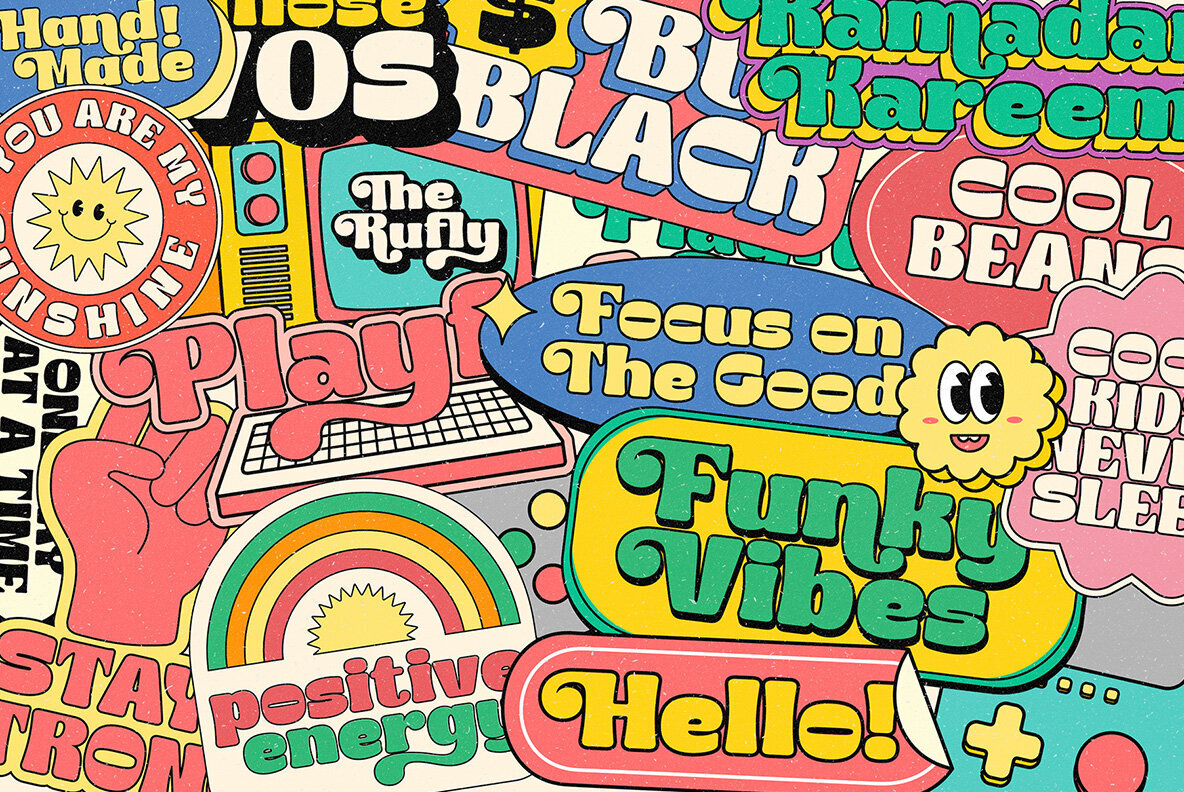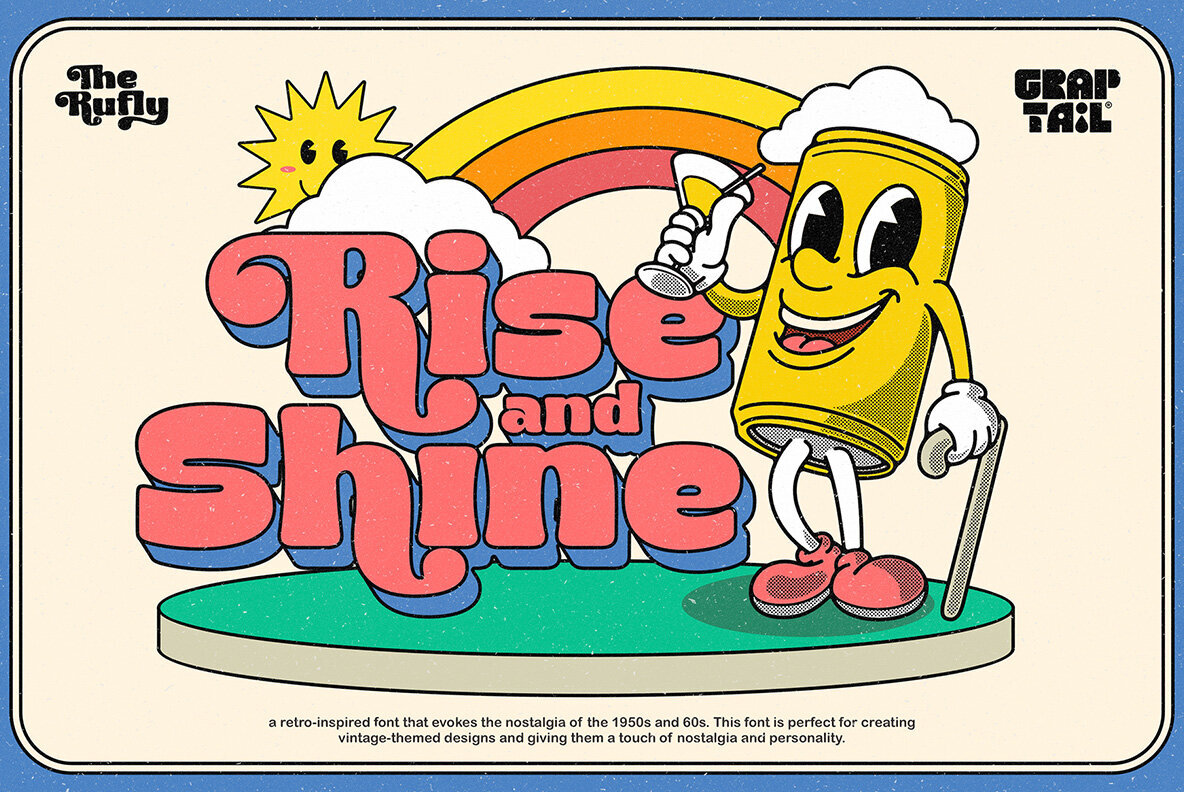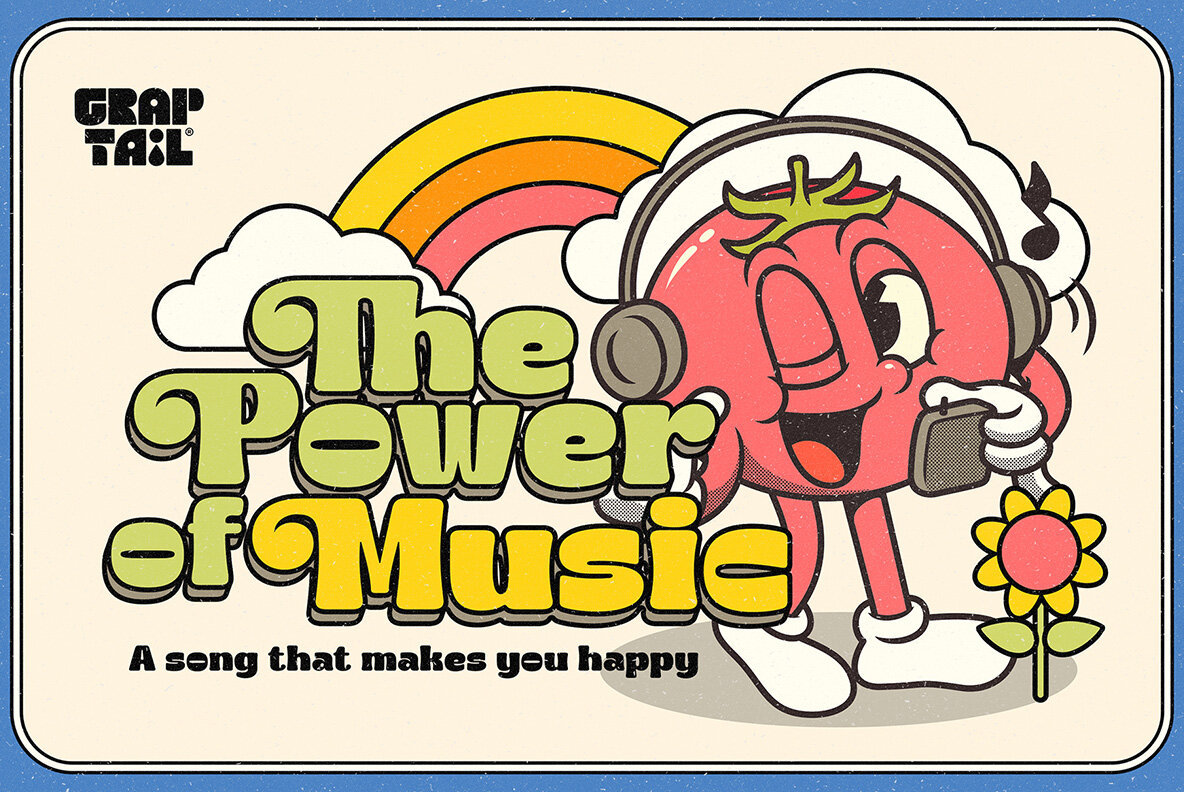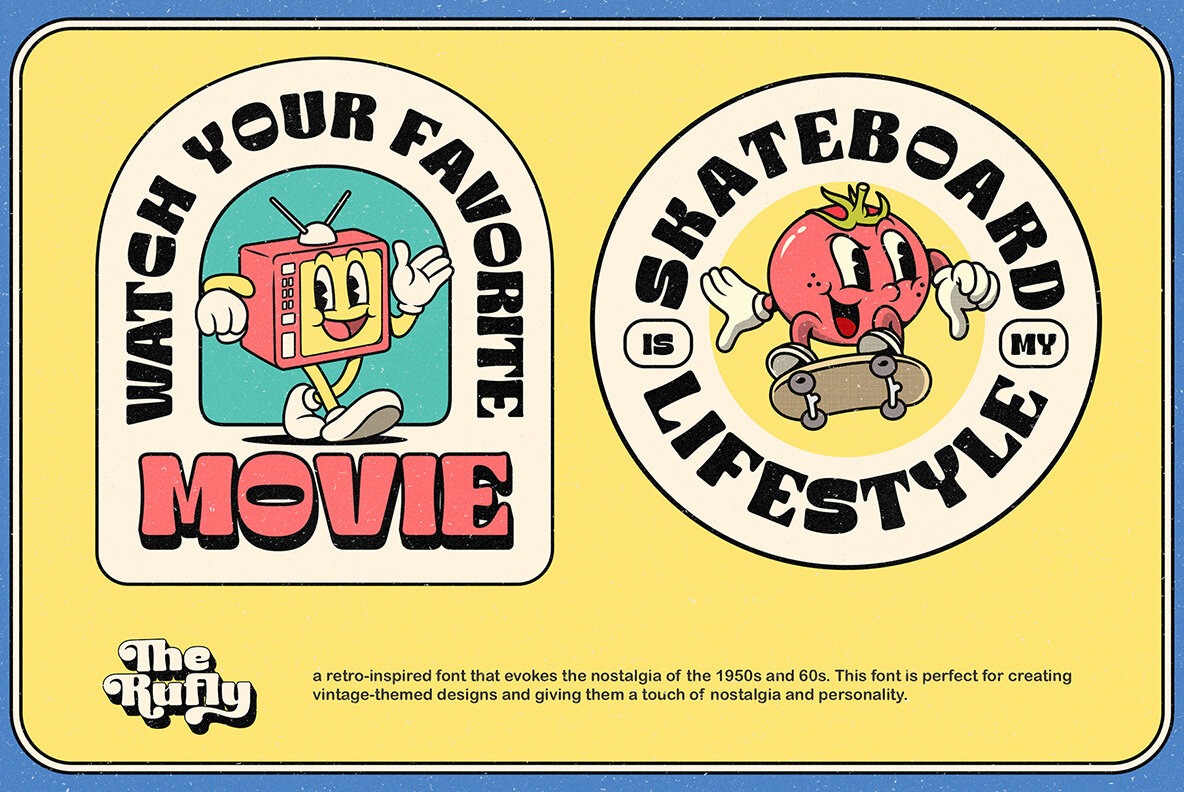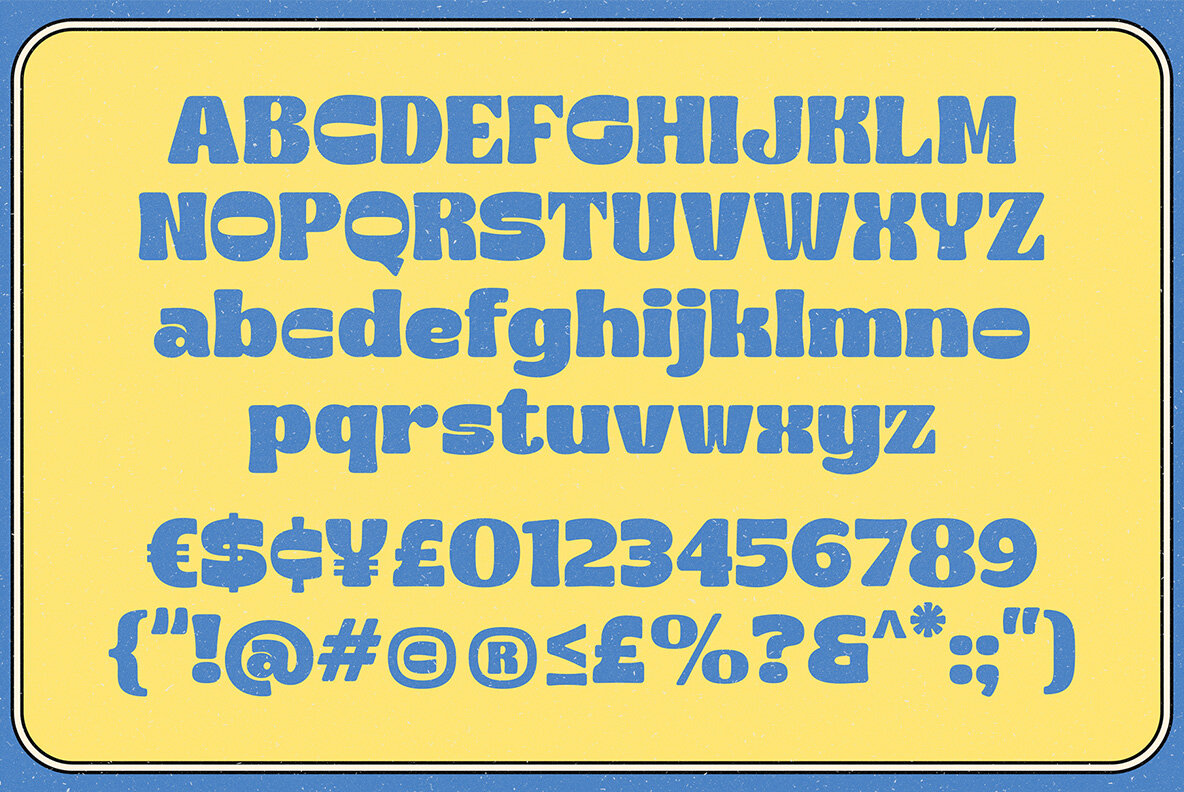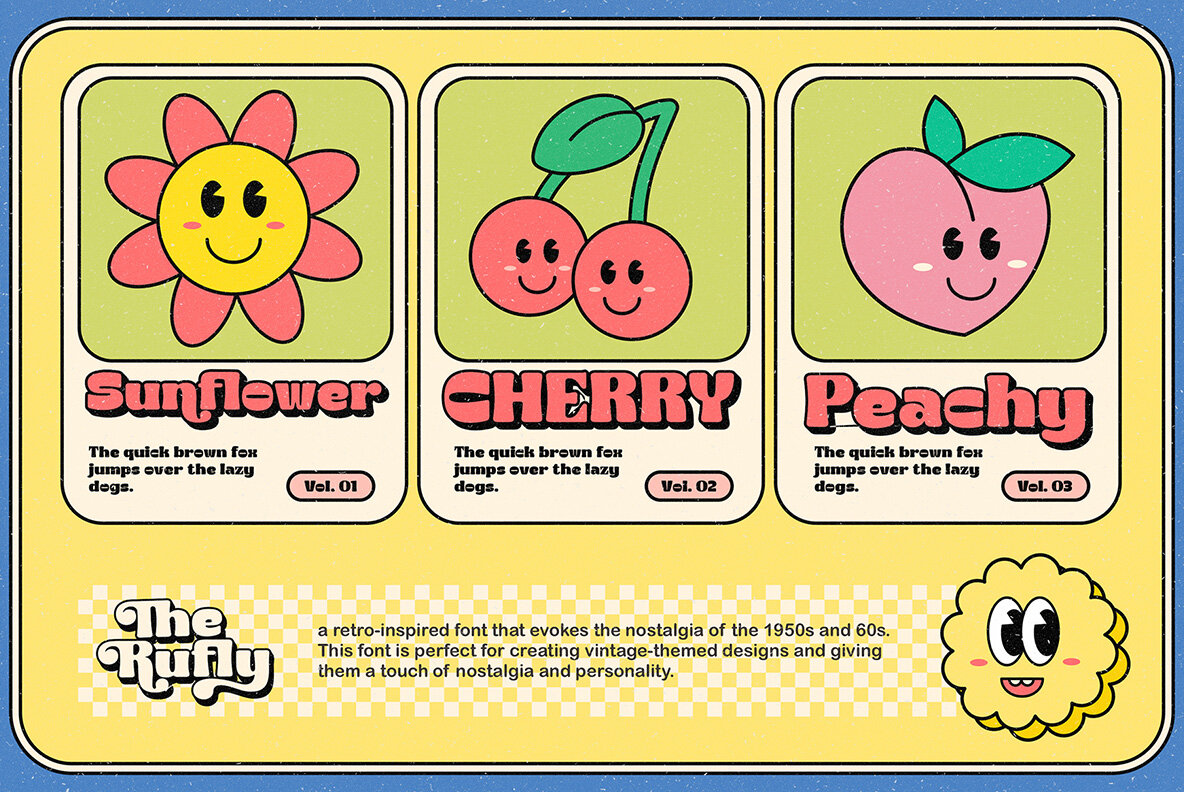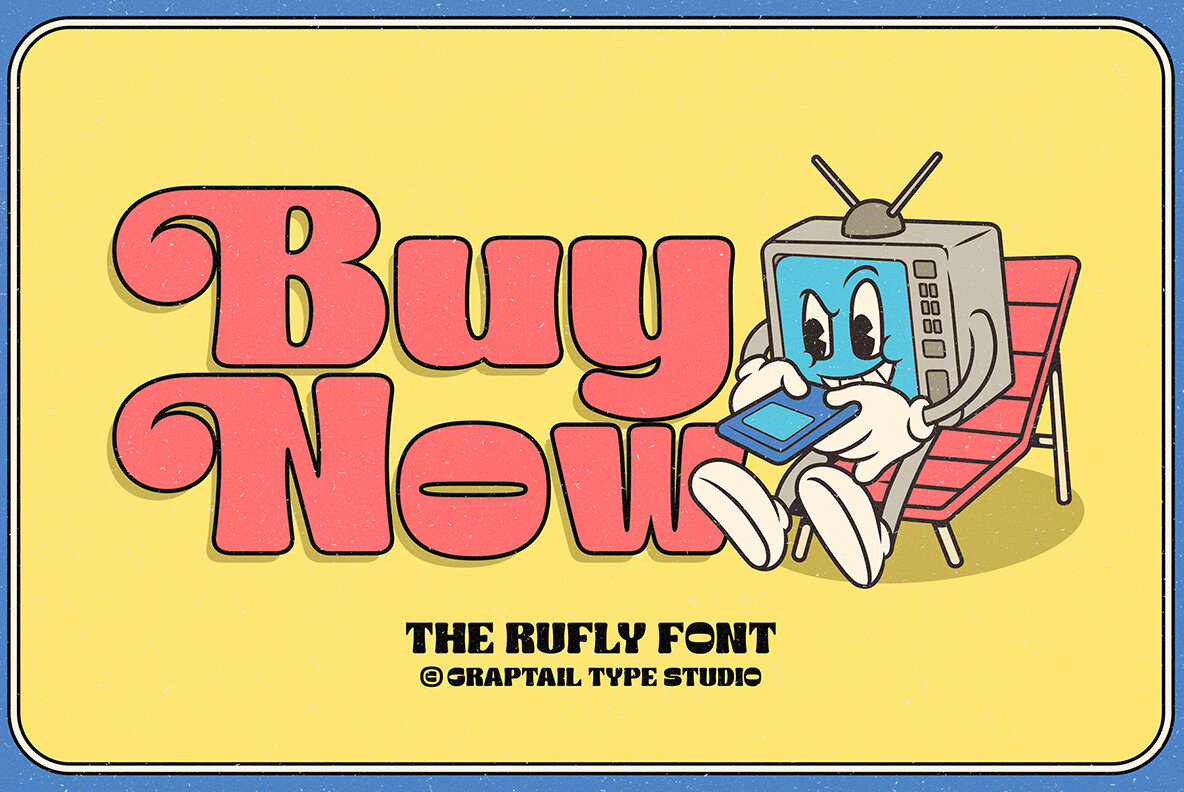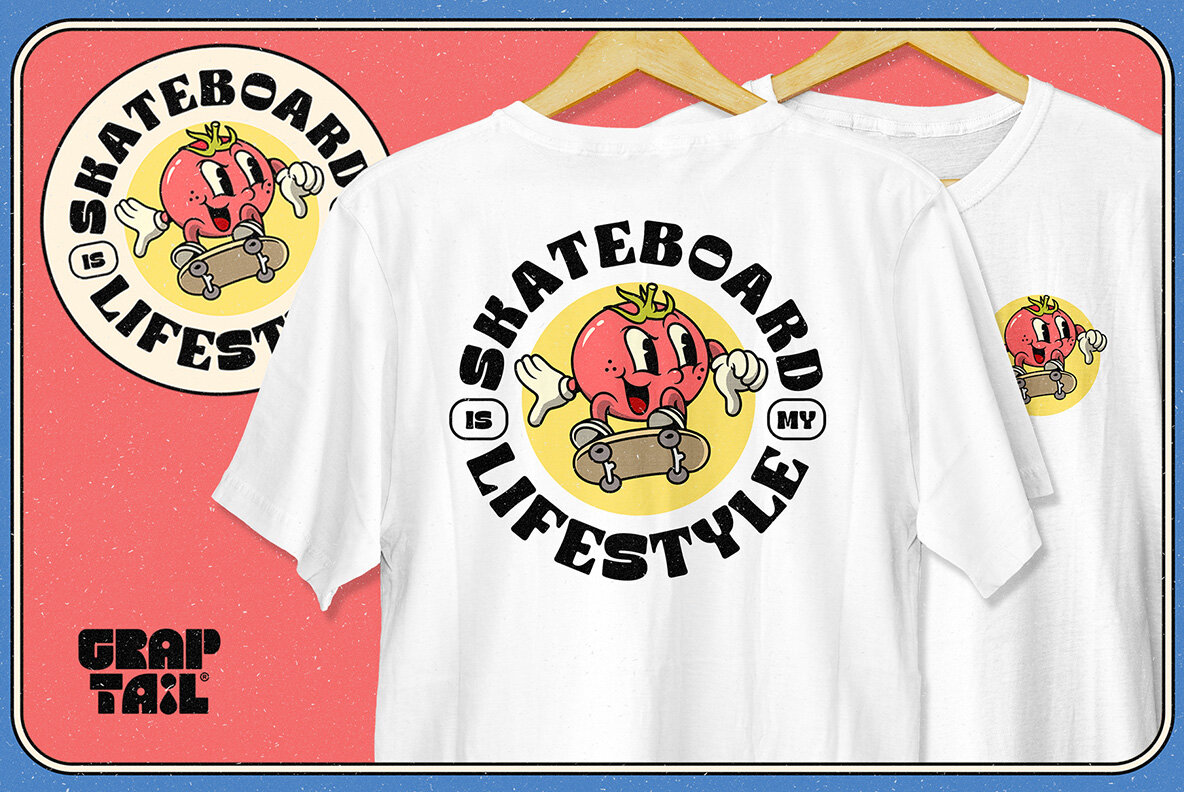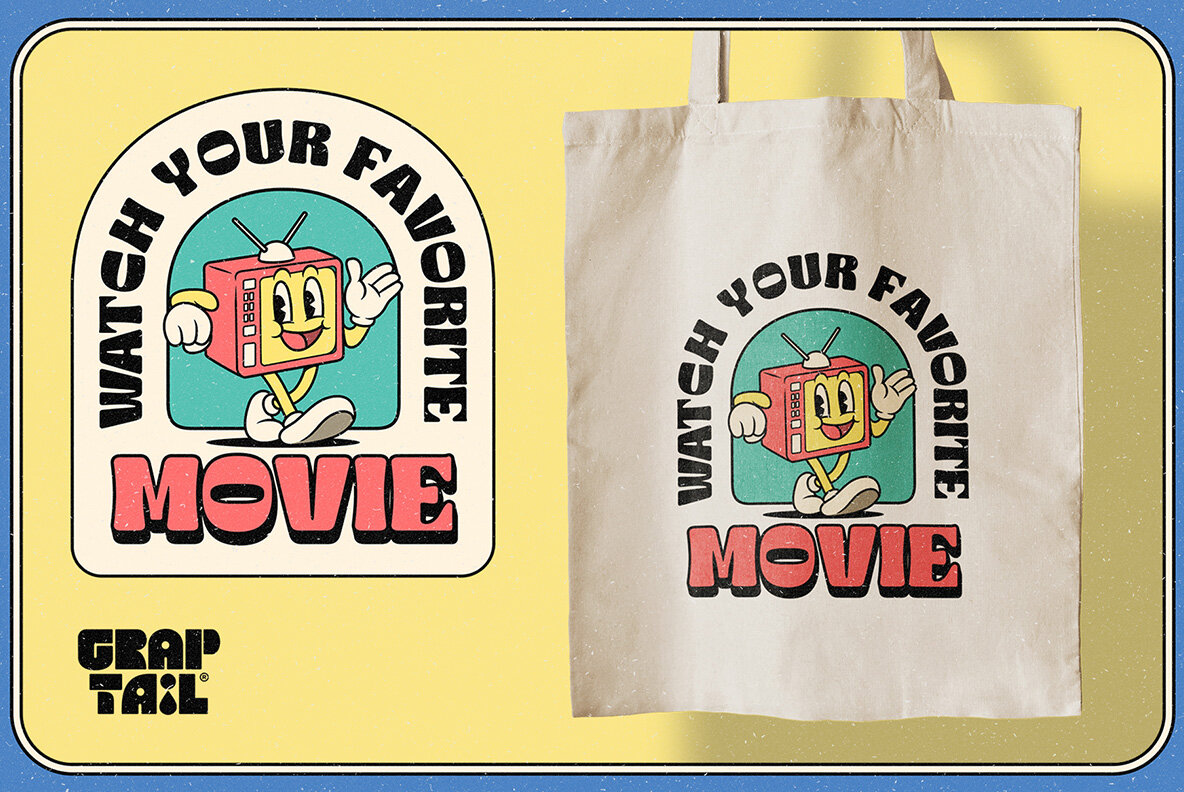
The Rufly Font
The Rufly Regular
Introducing The Rufly, a retro-inspired font that evokes 1950s to 90s nostalgia. This font is perfect for creating vintage-themed designs and giving it a touch of nostalgia and personality. The Rufly features a soft, solid design with curved corners and a unique letter shape. This font also includes a variety of alternative characters and ligatures, allowing you to create many different looks with the same font.